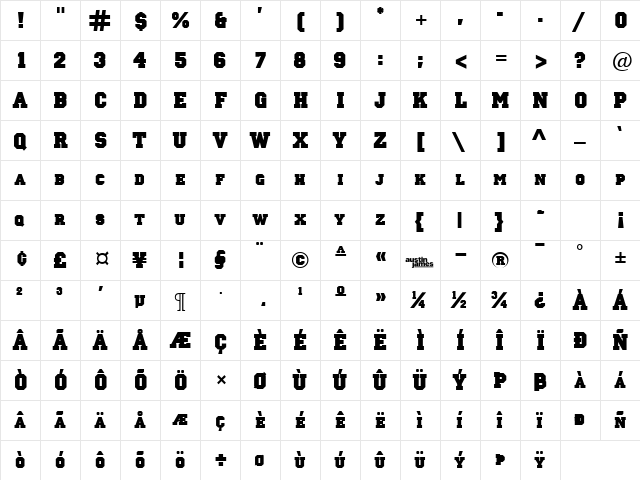
Letterman-Solid Regular
Design Context for Letterman-Solid Typeface
Letterman-Solid offers clean, dependable letterforms without strong stylistic allegiance, making it a practical choice for designers who need flexibility.
Pro Tip: Use Letterman-Solid in both headline and body roles to test its range before committing to a single application.